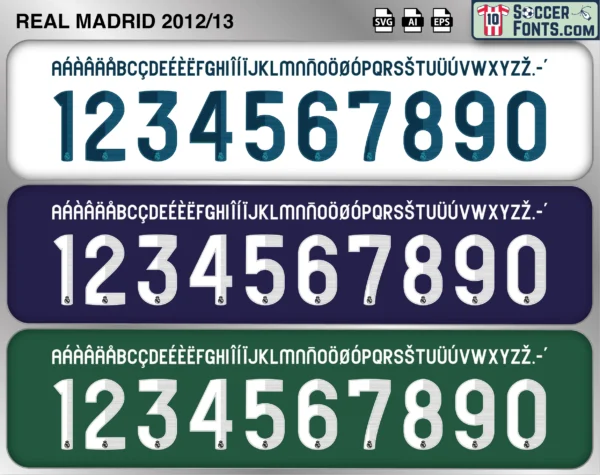
Real Madrid 2012-13 Font
The Real Madrid 2012-13 font is an editable soccer jersey lettering design in vector format inspired by the Real Madrid kit style used during the 2012-13 football season. This football font artwork is prepared for football shirt recreations, custom jersey projects, football kit mockups and sports graphic design workflows.
The Real Madrid 2012-13 font became associated with an important transitional campaign that bridged the Mourinho era and the extraordinary European success that followed. Cristiano Ronaldo continued producing remarkable goalscoring performances, while younger players developed alongside experienced leaders in one of football’s most competitive environments. Real Madrid shirts from this season remain highly popular among football shirt collectors because of their connection with Modrić’s first year at the club and the final chapter of Mourinho’s tenure. The Real Madrid 2012-13 font reflects a period of ambition, evolution and elite-level competition, representing a squad that would soon become the foundation of one of the greatest dynasties in UEFA Champions League history.